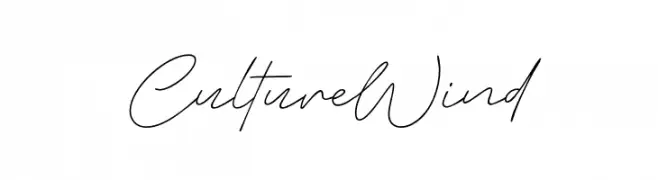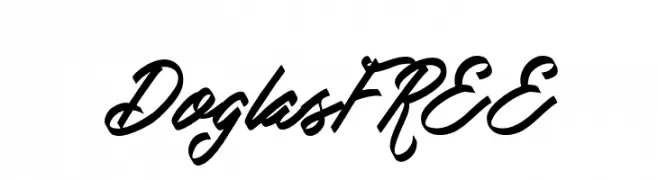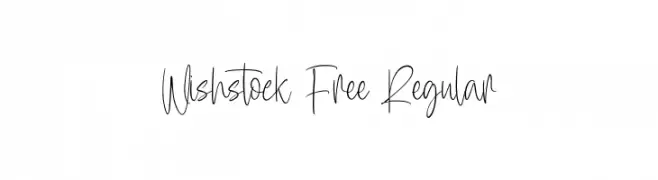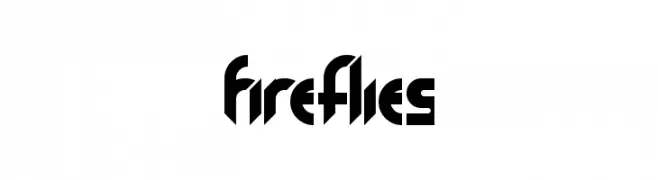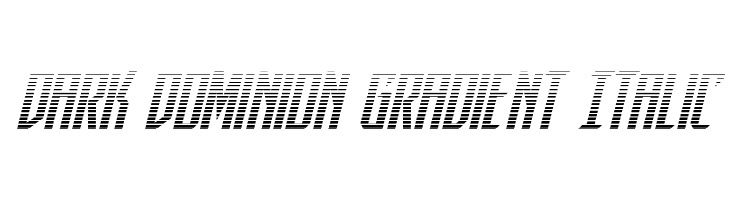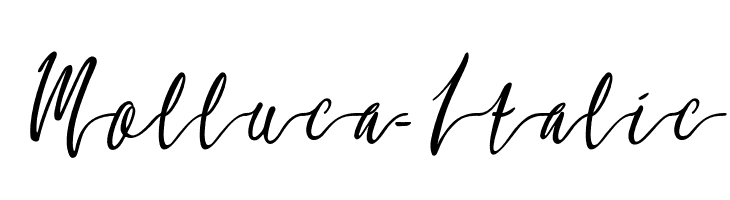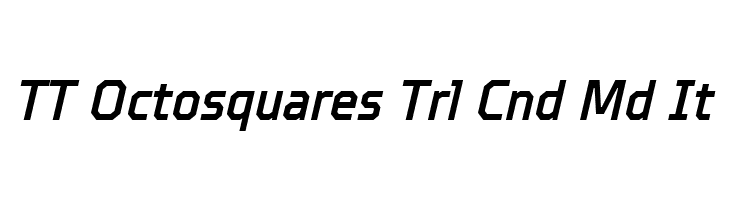
A dynamic, cursive script font with a natural, handwritten style.
A lively and expressive cursive font with elegant loops and swashes.
A dynamic, italic font with a futuristic gradient line design.
A casual and elegant handwritten font with fluid, connected strokes.
A bold, expressive handwritten font with dynamic strokes.
A bold, italicized font with a strong and dynamic presence.
A dynamic and flowing script font with elegant, cursive letterforms.
A whimsical, handwritten script with tall, narrow, and playful strokes.
A geometric, angular font with a futuristic and technical style.
A bold, geometric font with sharp angles and a modern aesthetic.